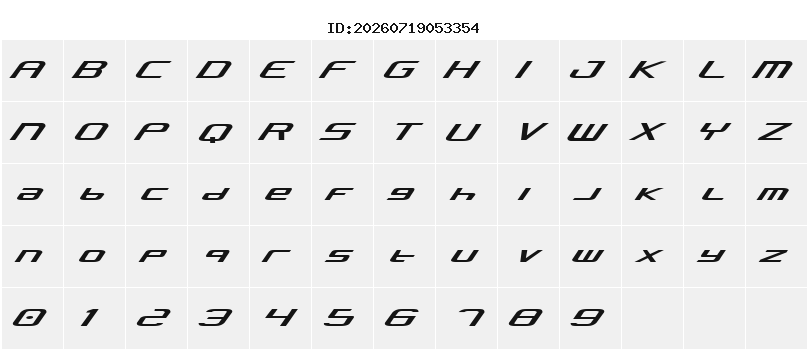
About Concielian Alpha.ttf
Concielian Alpha.ttf is a modern, elegant sans-serif font designed for ultimate readability and visual harmony. Perfect for branding, headlines, web design, and print materials.